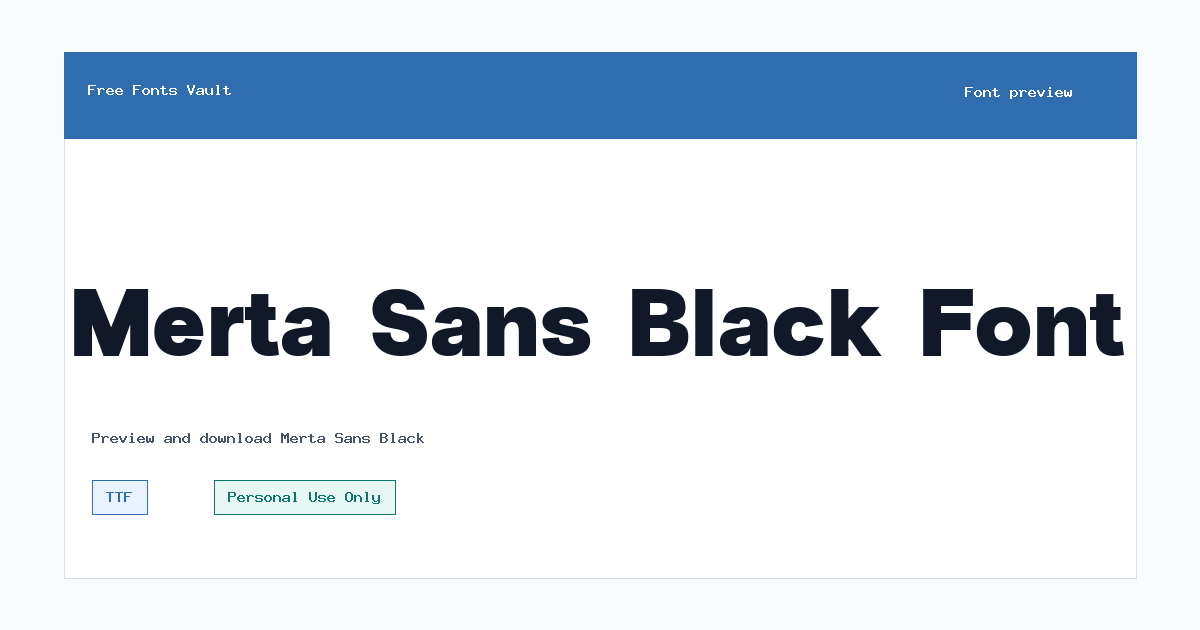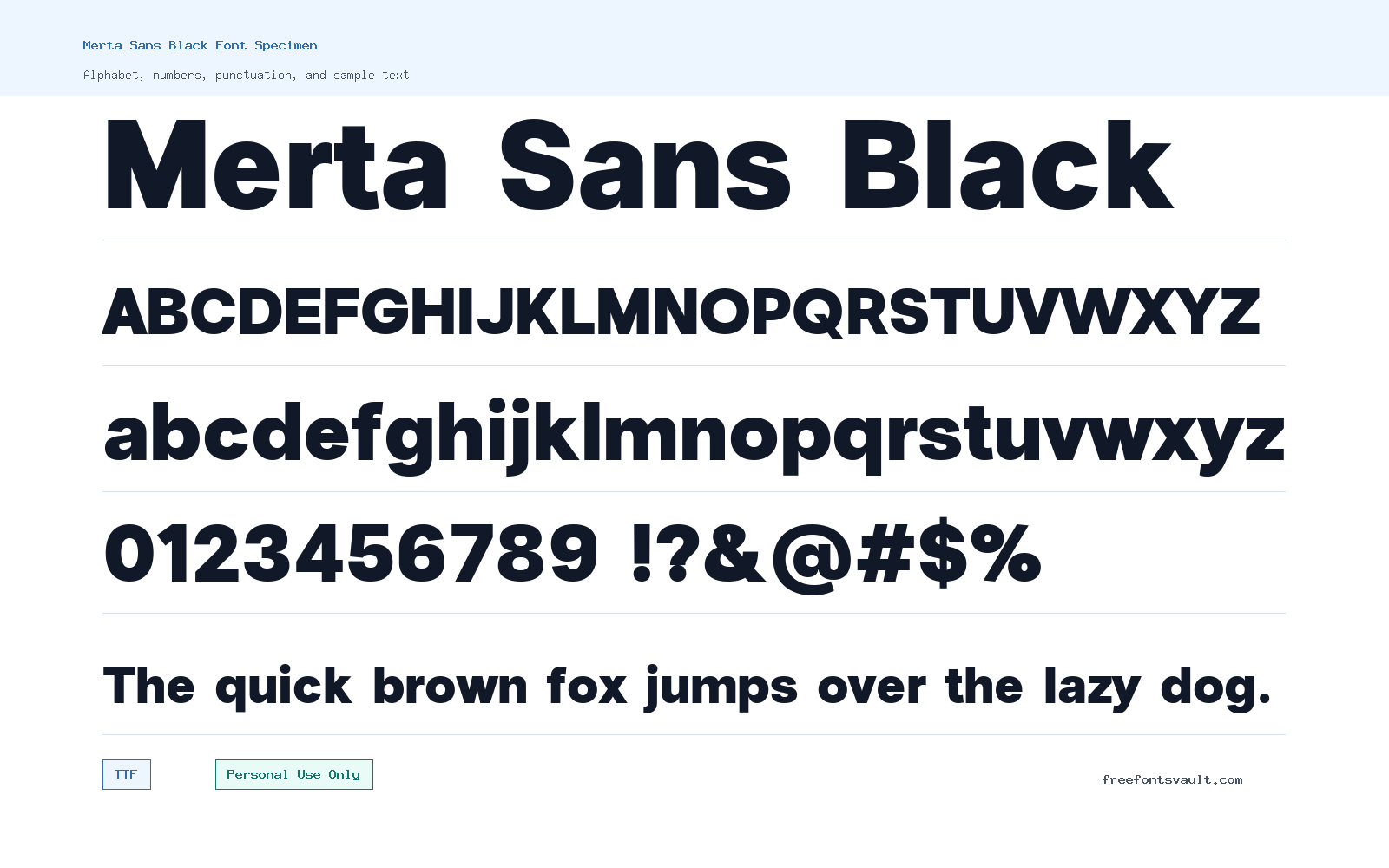
Merta Sans Black
- Designer Diki Pradipta Tri Atmojo
- Foundry Lettertype Studio Co.
Merta Sans Black font.
Merta Sans Black is a heavy-weight sans serif font made for strong, direct display text. Its 900 weight gives words a solid presence, making it useful when you want headings, posters, logo drafts, or social graphics to feel clear and confident without relying on decorative shapes.
About Merta Sans Black
Merta Sans Black sits in the bold end of the sans serif range. The Black weight is the main reason to use it: letters appear dense, firm, and attention-grabbing, so short lines can carry more visual weight than they would in a regular text font. It is best treated as a display face rather than a long-reading body font. Use it for names, labels, cover text, headlines, large buttons, packaging mockups, and brand exploration where a clean but forceful tone is needed. Since the downloadable file is a TTF font, it should work in many common desktop design apps that support TrueType fonts.
For visitors testing the preview, start with the real words you plan to use instead of only typing the alphabet. Try a brand name, poster headline, event title, or navigation label, then check the spacing between letters at the size you need. Heavy sans serif fonts can look excellent at large sizes but may become tight in small text, especially in all caps or in narrow layouts. If you are working on a logo concept, test both title case and uppercase. Uppercase can feel stronger, while title case may be easier to read when the name is longer.
- Black 900 weight for bold headlines, labels, posters, and display use
- Clean sans serif style that pairs well with quieter body fonts
- Strong visual weight suited to short text rather than long paragraphs
- Poster headlines and event graphics
- Logo drafts and brand concept mockups
- Social media titles, quote cards, and thumbnails
- Packaging concepts, labels, and product-name treatments
- Website hero text and web mockup headings
- Presentation covers and bold section dividers
- Short editorial titles where a heavy sans serif look is needed
Use Merta Sans Black where size and impact matter. Keep it for short text, give it enough spacing, and avoid using it for dense paragraphs. For pairing, choose a simpler regular-weight sans serif or a readable serif for body copy so the Black weight can stay focused on headings and key words. In logo work, test the font in black and white first, then check the mark at small sizes before adding color or effects. For web mockups, use it in hero titles, banners, feature headings, and callout blocks rather than full page text.
What type of font is Merta Sans Black?
It is a heavy sans serif display font. The listed weight is 900, which makes it suitable for bold headings and short, high-impact text.
Is Merta Sans Black good for body text?
It is better for display text than body copy. The Black weight can feel too heavy for long paragraphs, so use a lighter companion font for reading text.
What should I pair with Merta Sans Black?
Pair it with a neutral regular-weight sans serif for a modern look, or with a calm serif for contrast. Keep the companion font quieter so the headline remains the focus.
Preview the exact words you plan to use, then check letter spacing, uppercase readability, punctuation, and how the font looks at both large and smaller sizes.